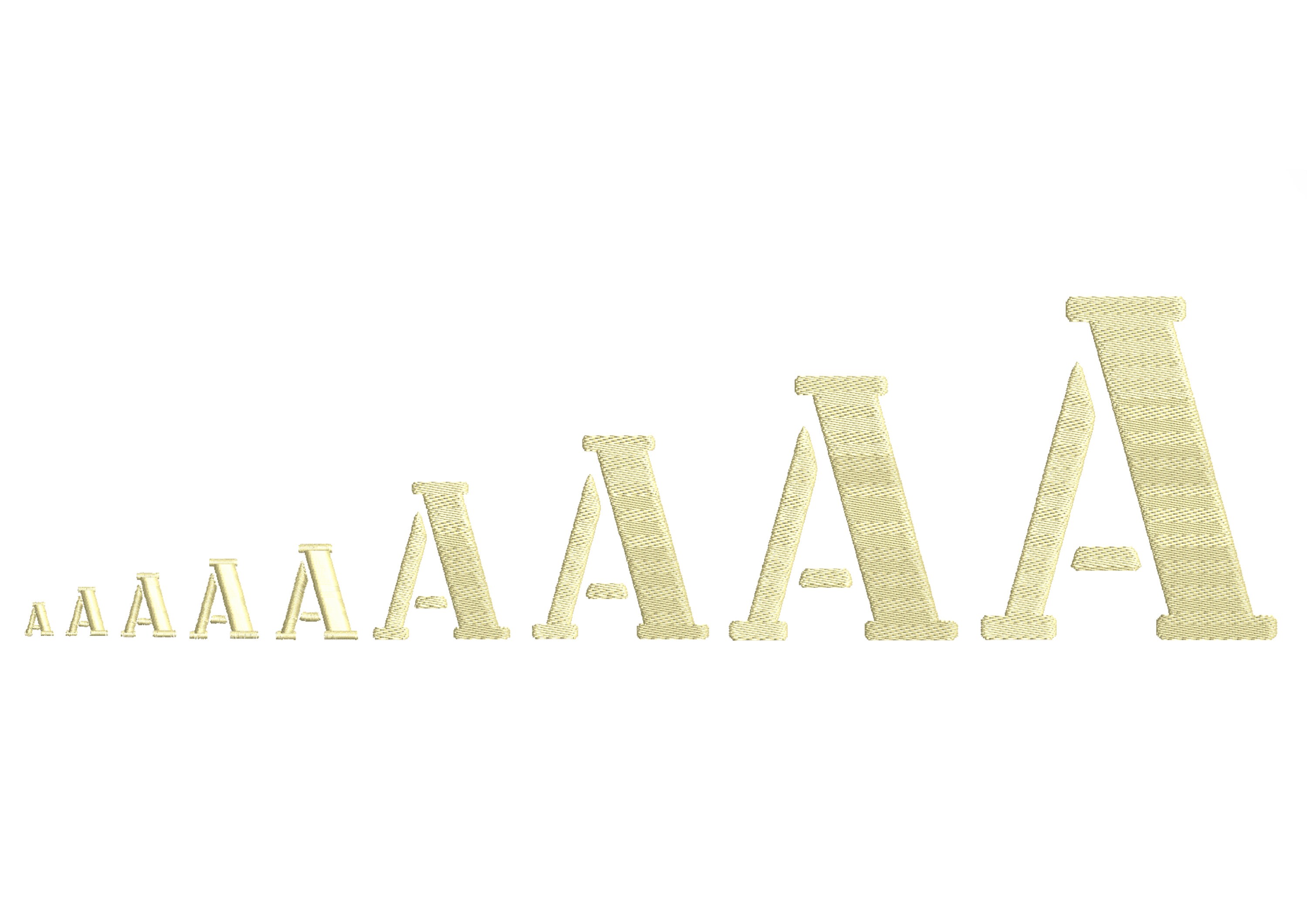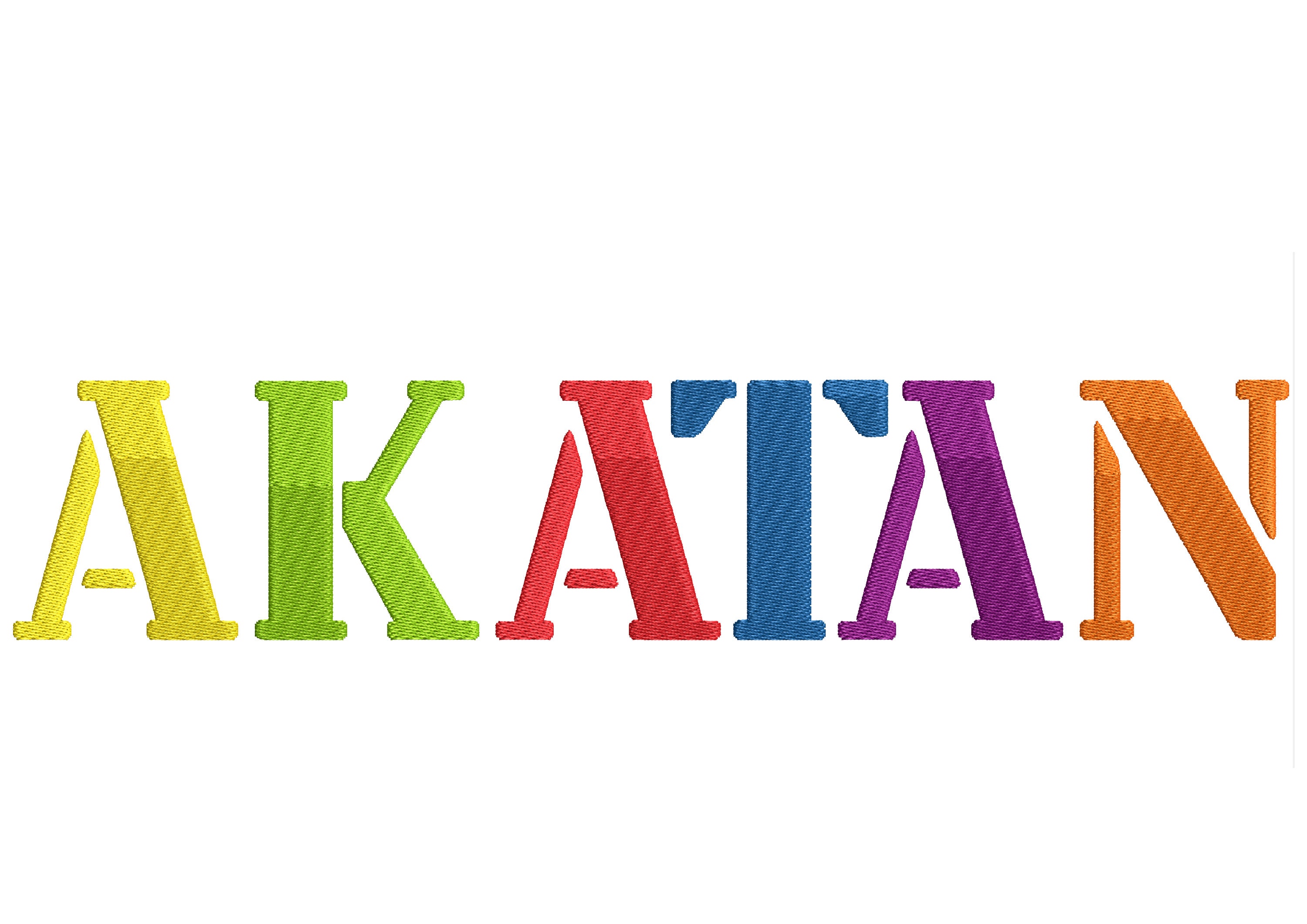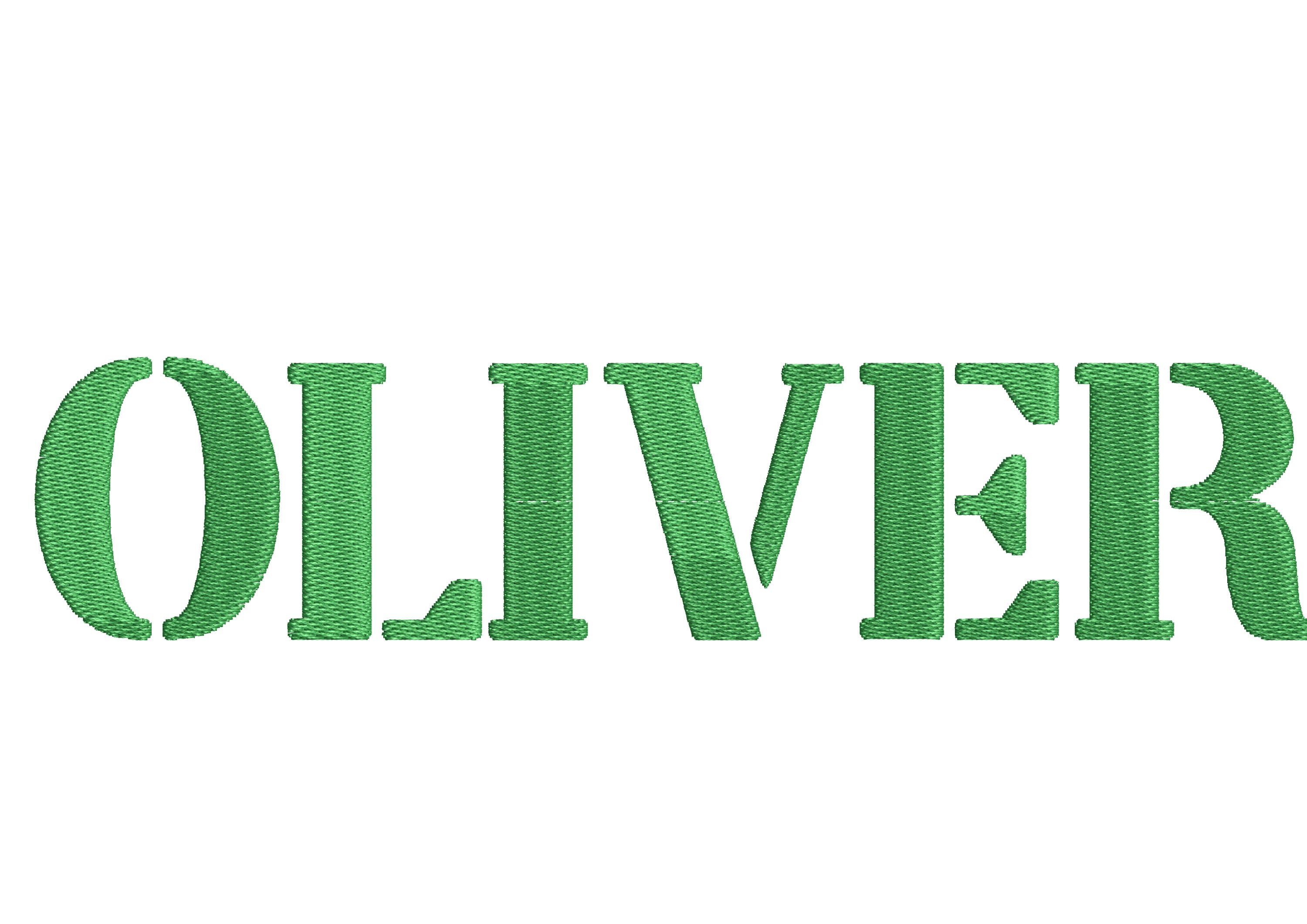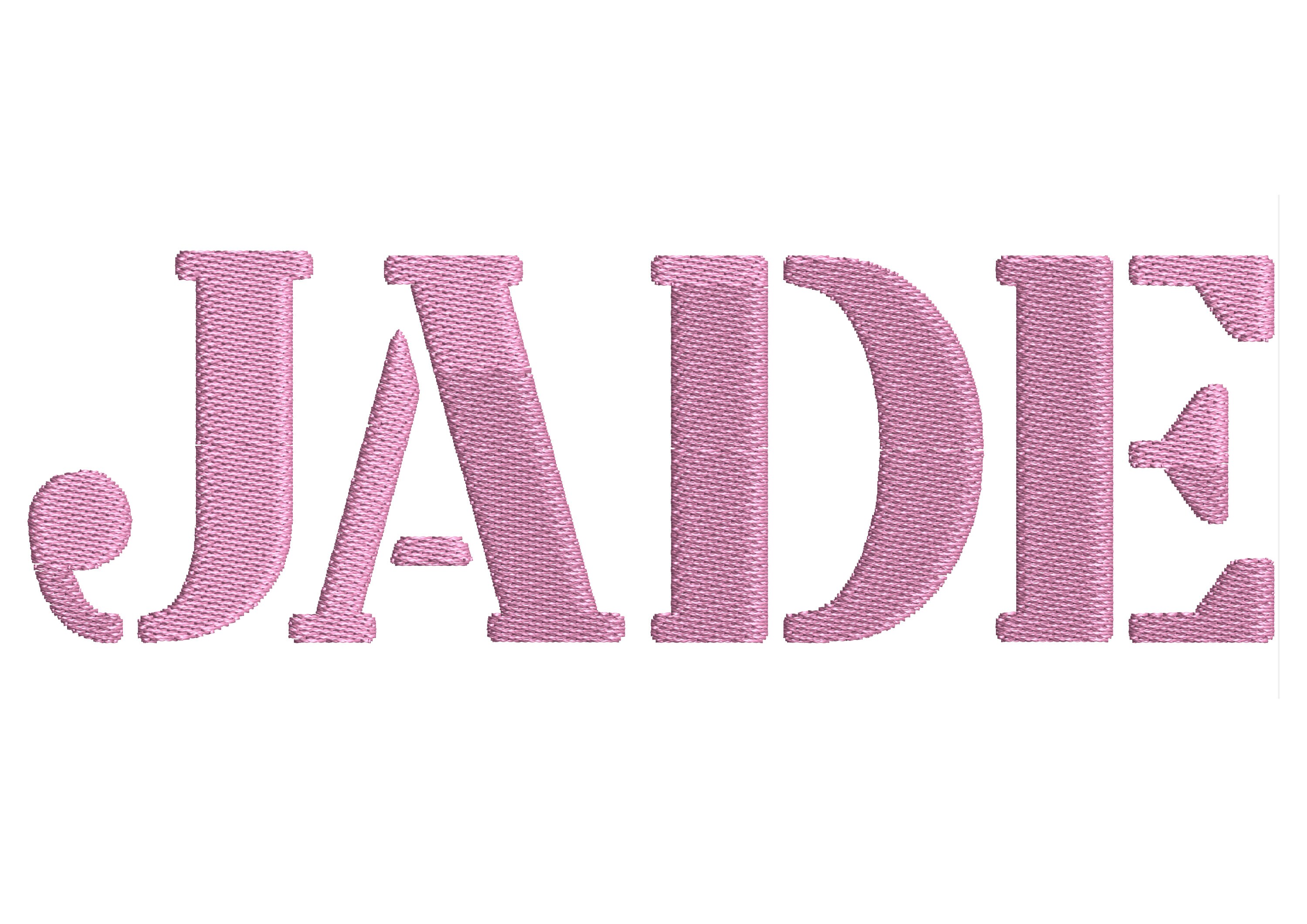
Army military Stencil FONT Akatan boys monogram alphabet machine embroidery designs satin and fill stitch sizes 0.3 up to 3.9 inch BX
Entire alphabet uppercase letters, numbers, and punctuation.
Note: the smallest sizes are satin stitch, and the bigger sizes are fill stitch.
Satin stitch
0.3 inch
0.5 inch
0.7 inch
0.9 inch
Fill stitch
1.7 inches
2.2 inches
3.3 inches
3.9 inches